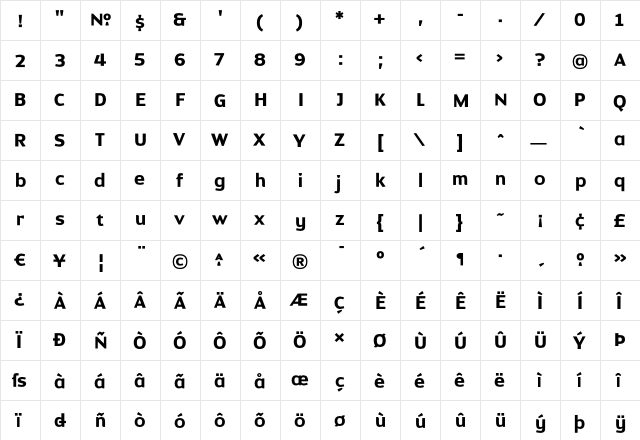
Dynasty Bold
| Foundry | n Hughes - A Device font |
Design Context for Dynasty Typeface
Dynasty is a composed and adaptable typeface that performs quietly and consistently across a wide range of design contexts. The heavy weight commands attention and anchors typographic hierarchies.
Pro Tip: Pair Dynasty with a font of contrasting weight or personality to build a more expressive typographic hierarchy.